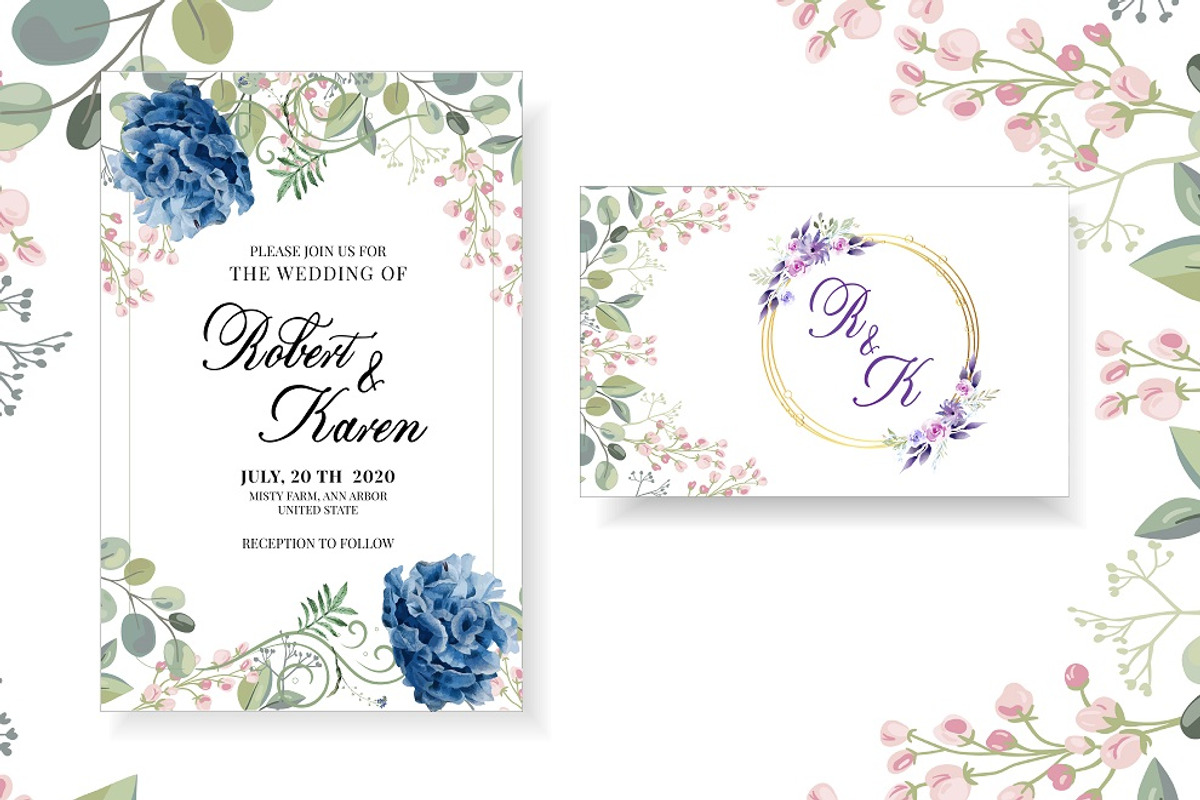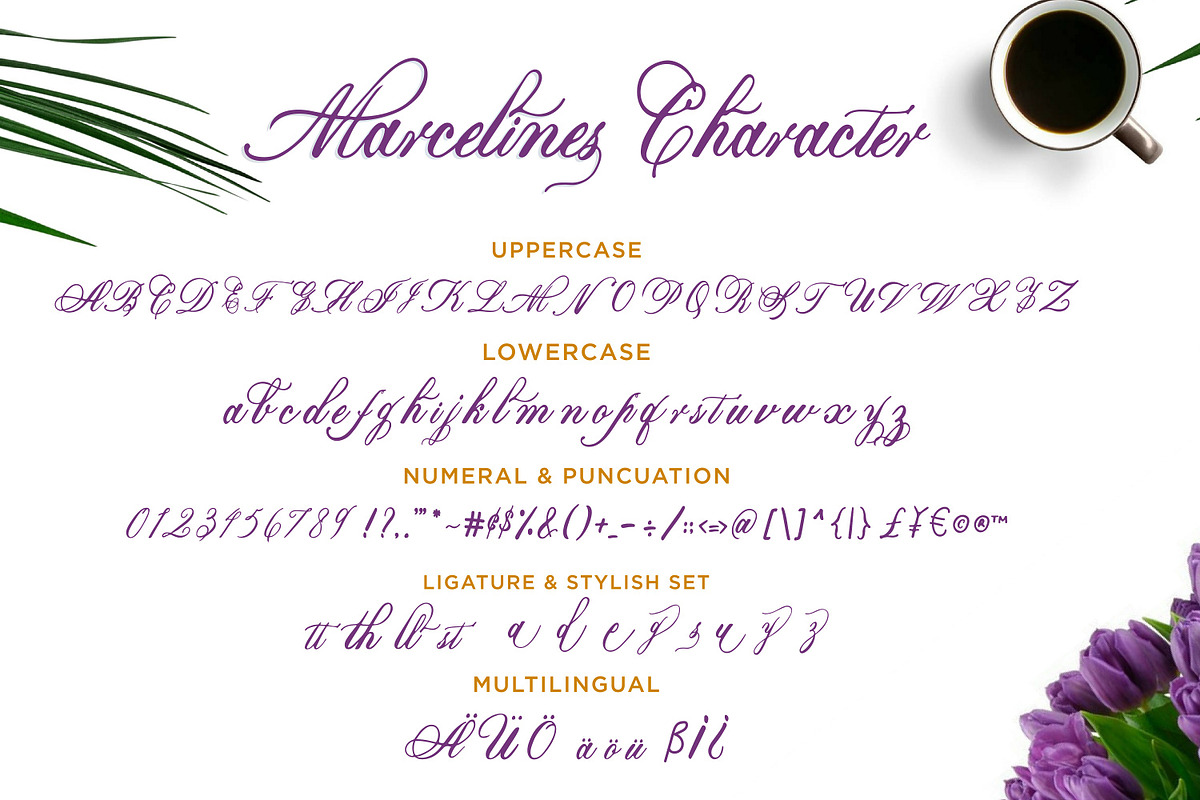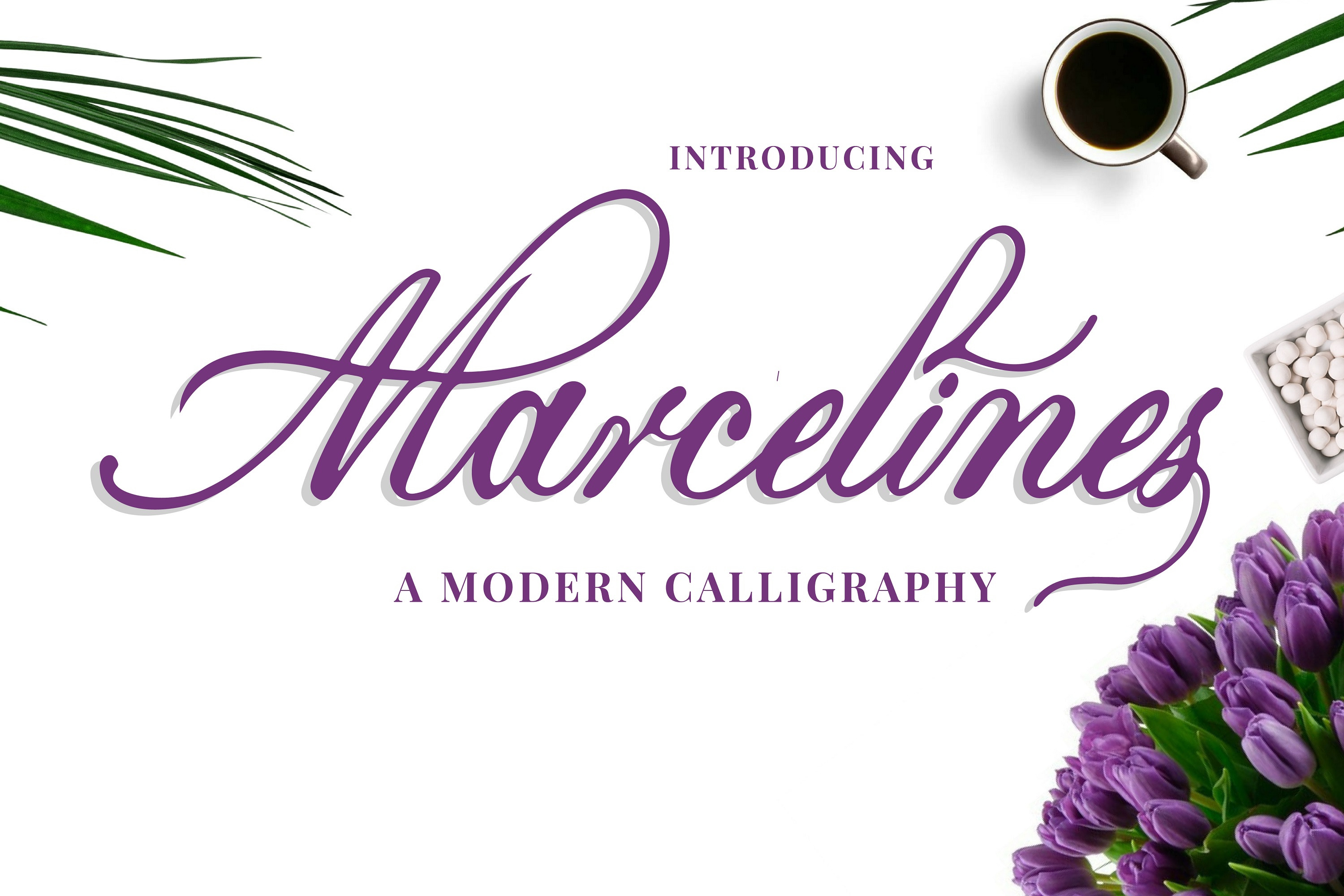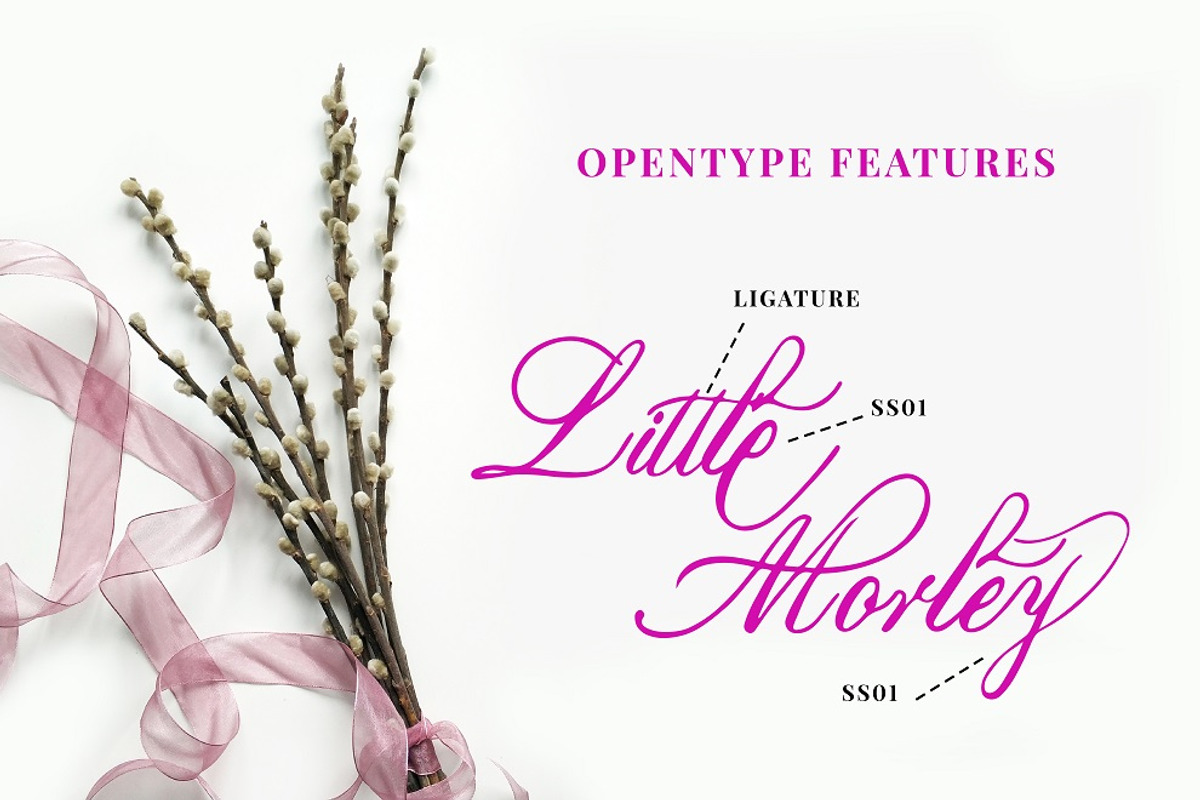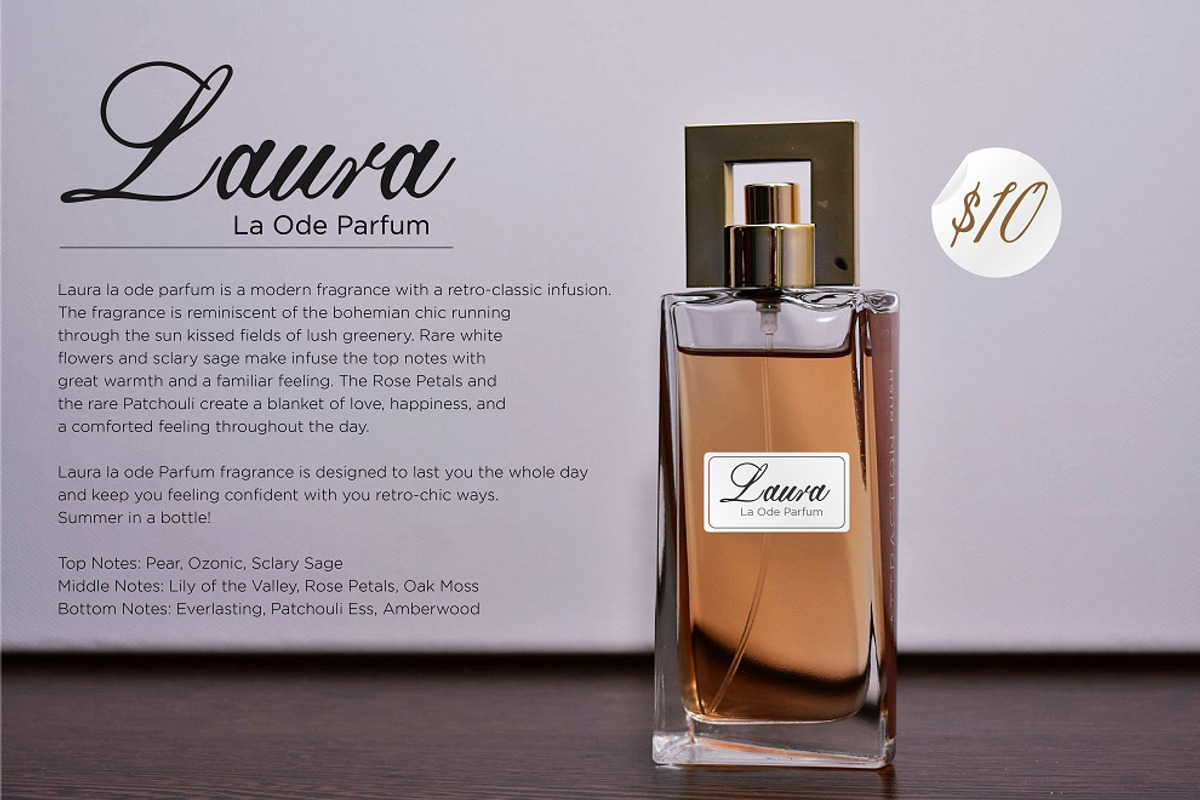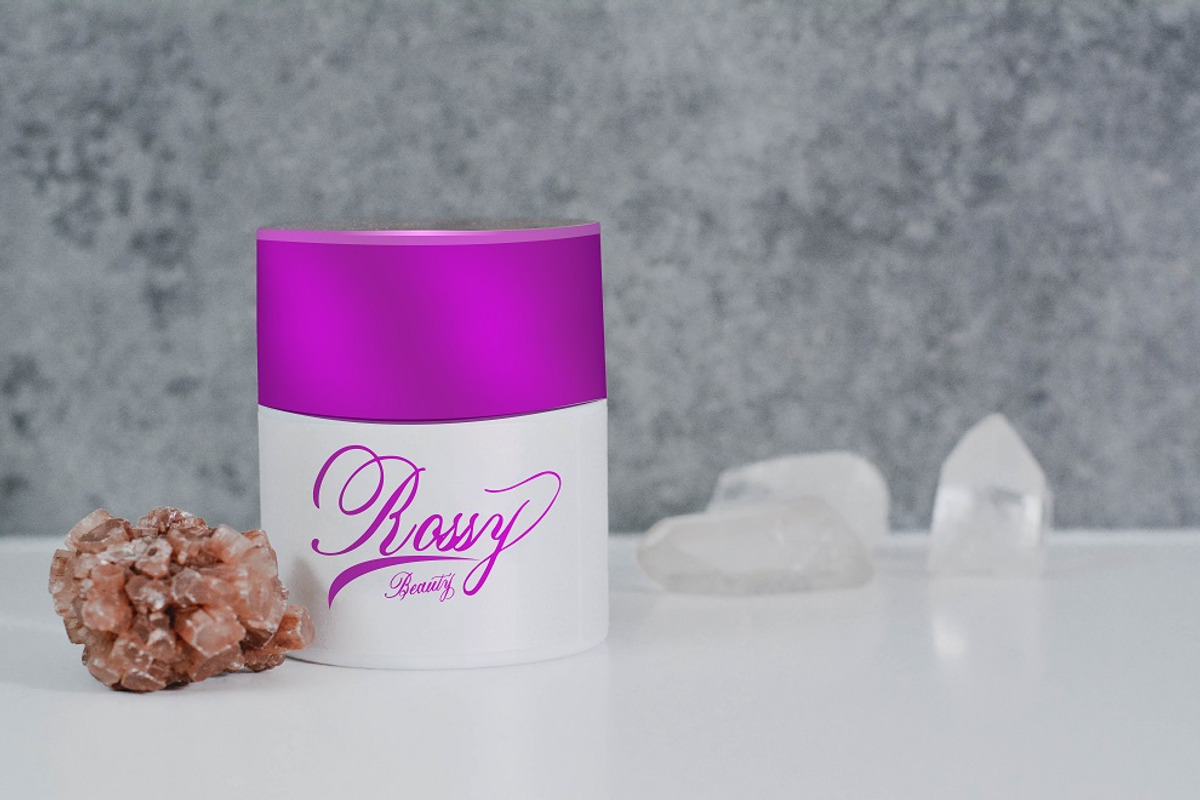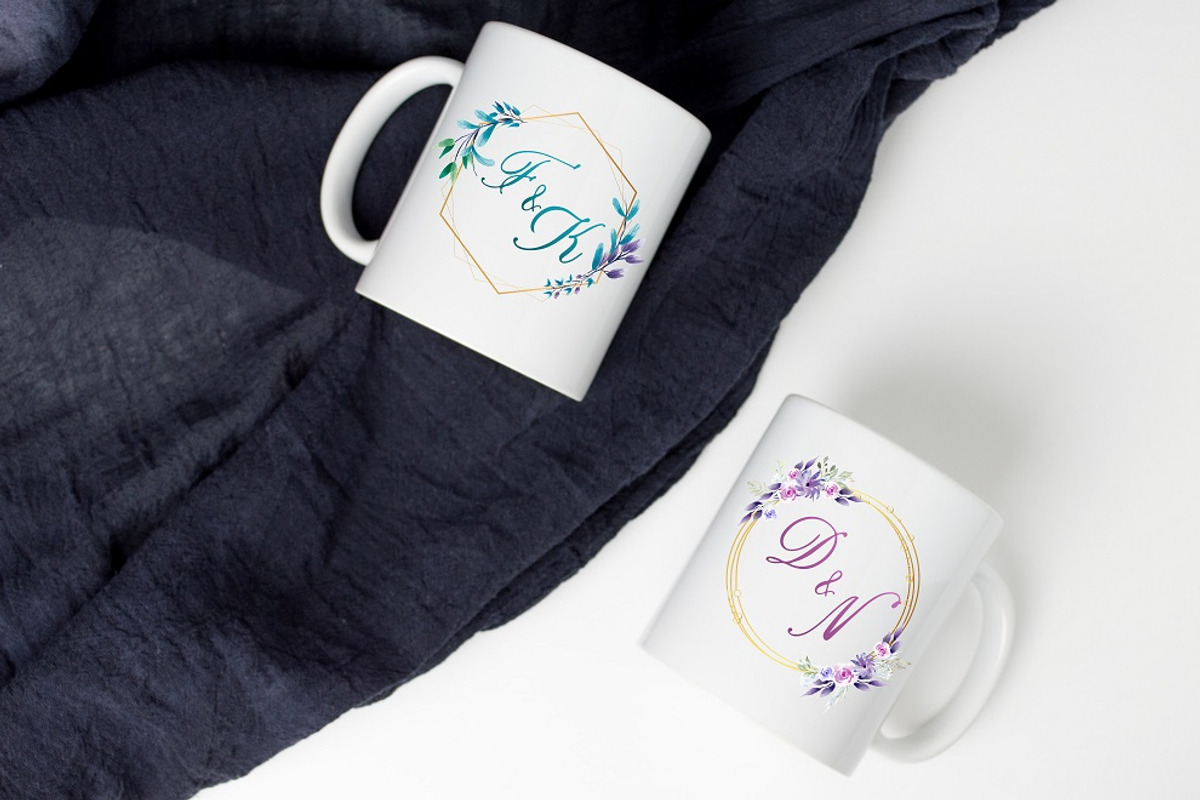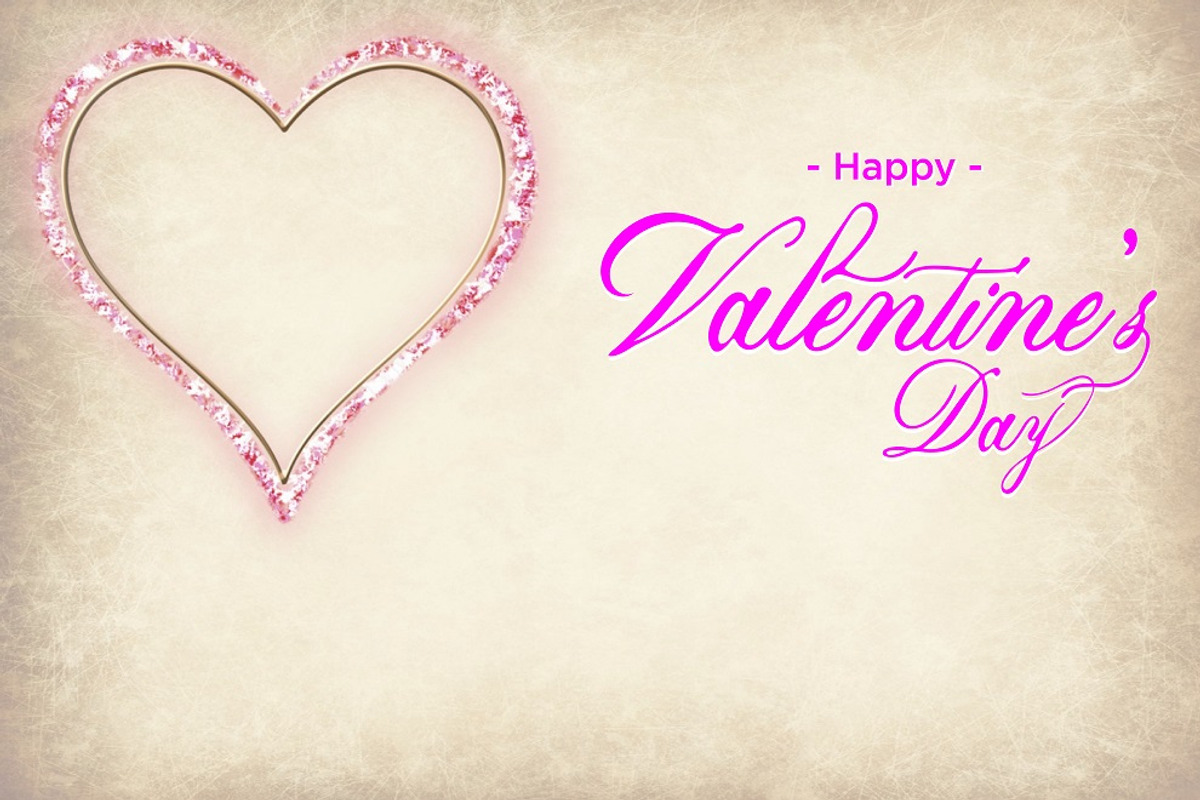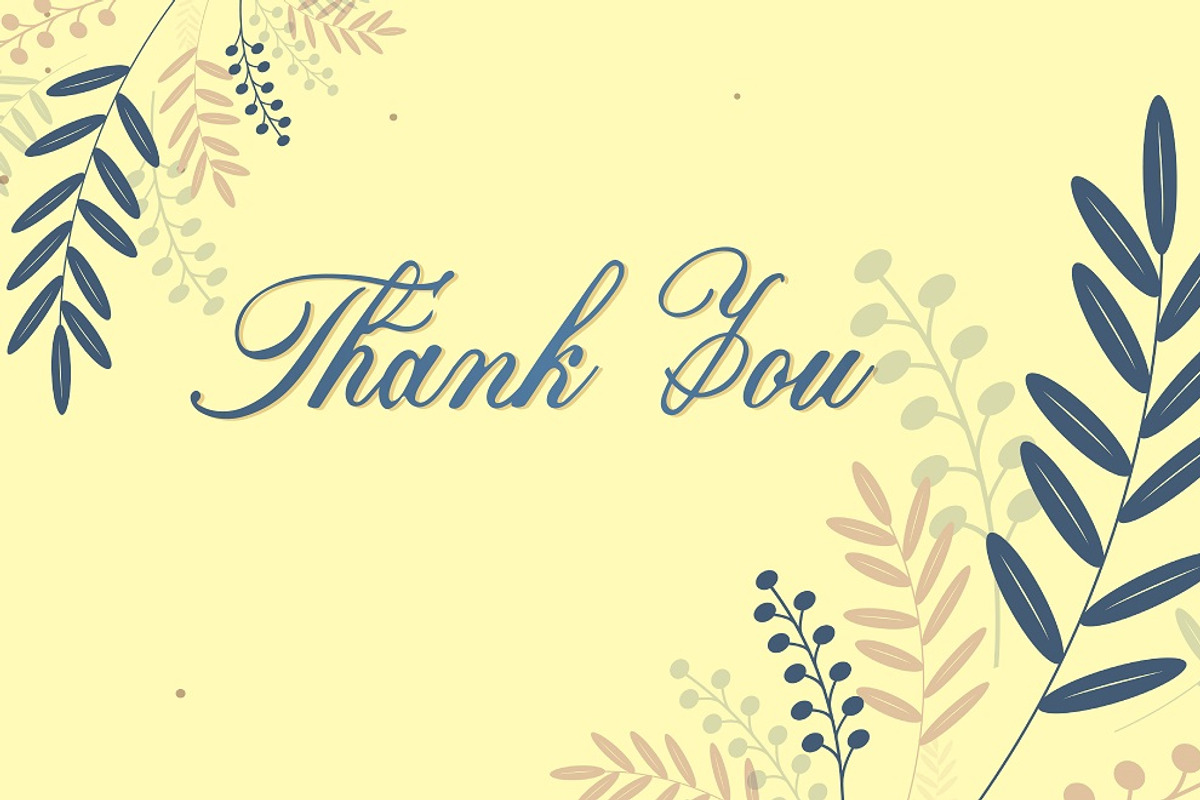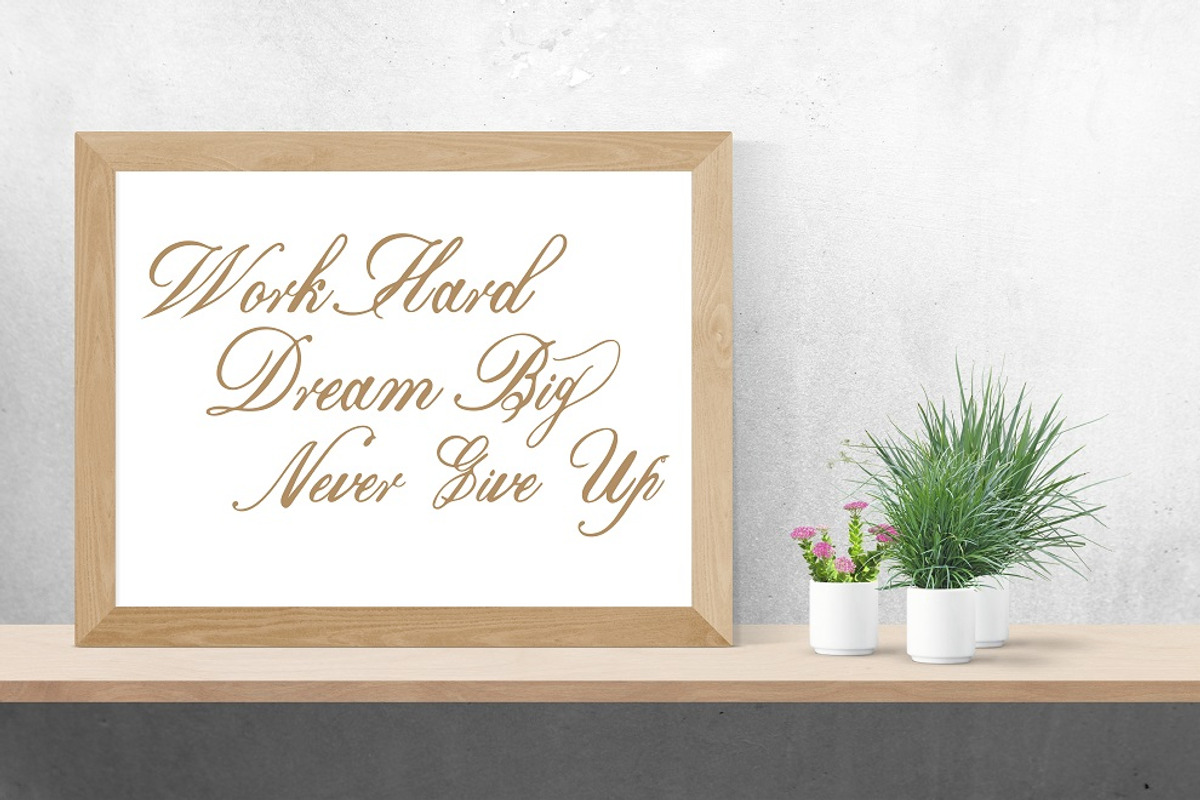
Marcellines a Calligraphy font
Introducing Marcellines is a Modern Calligraphy Font. This font is made by handwriting directly using a brush pen so that it can produce fonts that have character and artistic.
They work perfectly for you who need a typeface for headline, logotype, apparel, invitation, branding, packaging, advertising, etc. This typeface comes in uppercase, lowercase, punctuation, symbols, numerals, stylish set, ligatures, etc also support multilingual.
- Ligature and Stylish Alternate
- Fonts include multilingual support